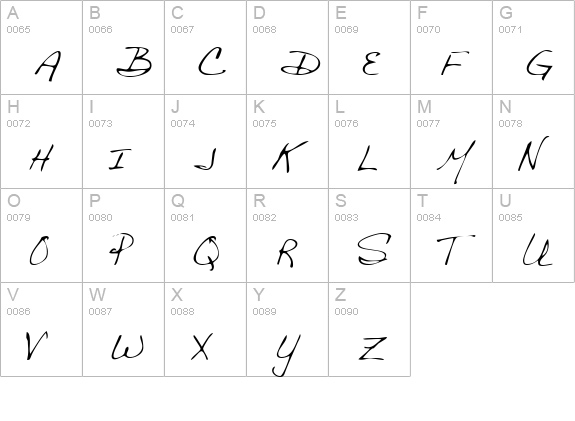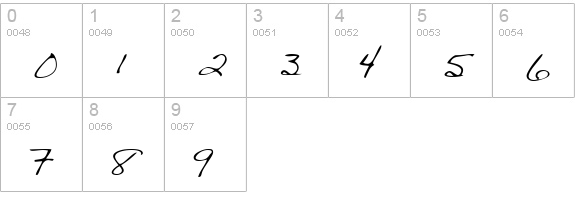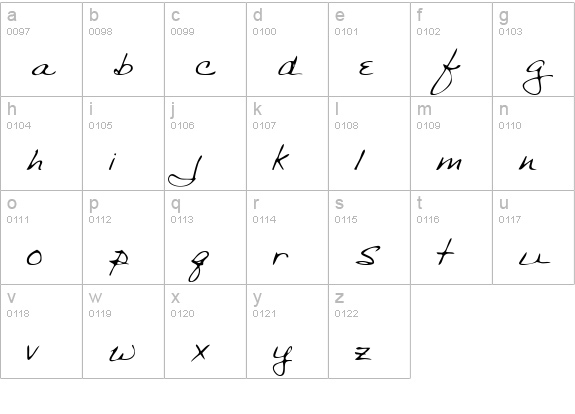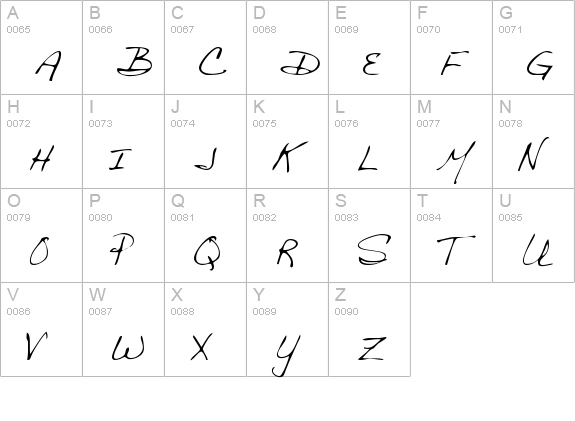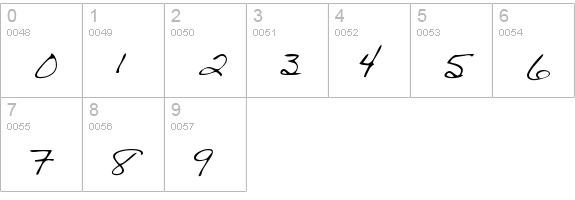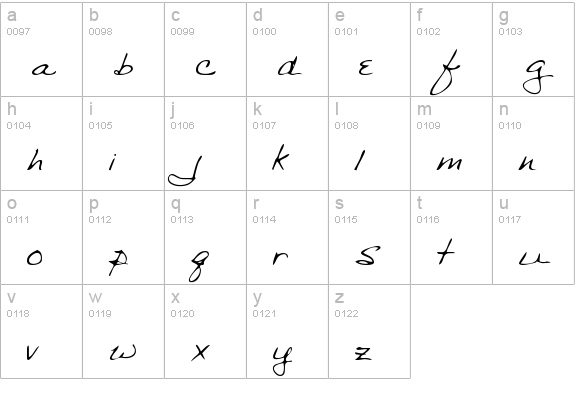
BethanysHand Font Details
BethanysHand font is a charming and elegant script typeface that exudes a sense of warmth and friendliness. Its flowing lines and gentle curves give off a handmade and personal touch, making it perfect for a wide range of design projects. Whether you're working on invitations, greeting cards, branding materials, or any other creative endeavor, BethanysHand font will add a touch of sophistication and creativity. What's even better is that BethanysHand font is available for free download at FontsMarket.com. This means you can easily access this beautiful font and incorporate it into your designs without any cost. Embrace the versatility and beauty of BethanysHand font in your projects today and see how it elevates your work to new heights.